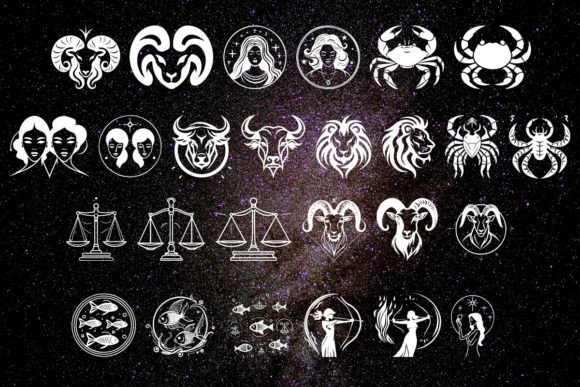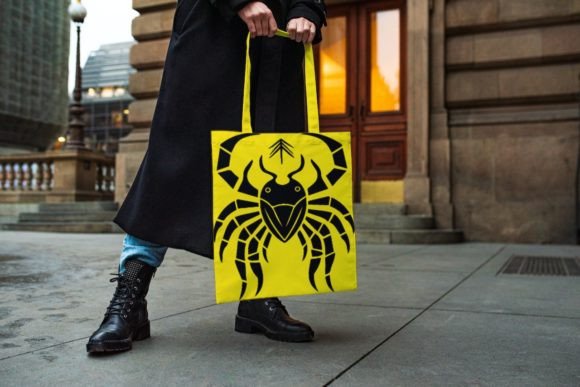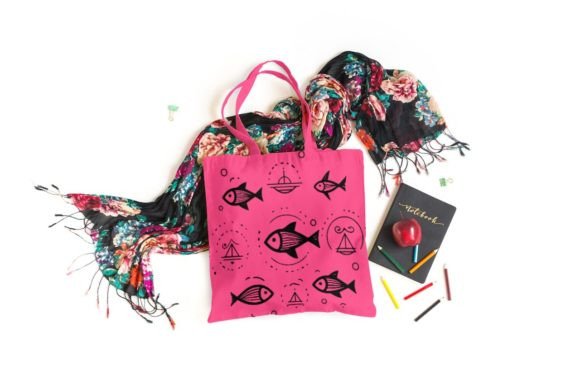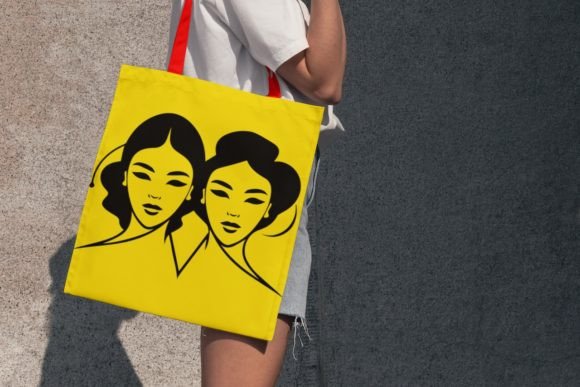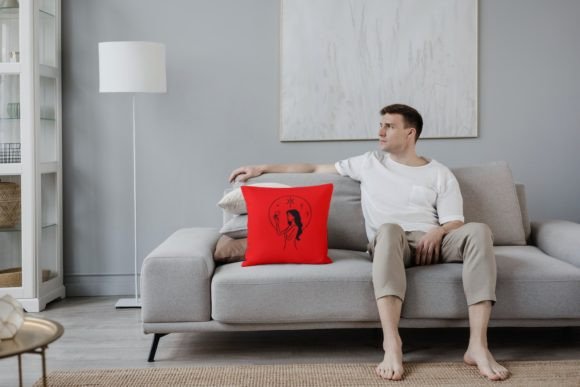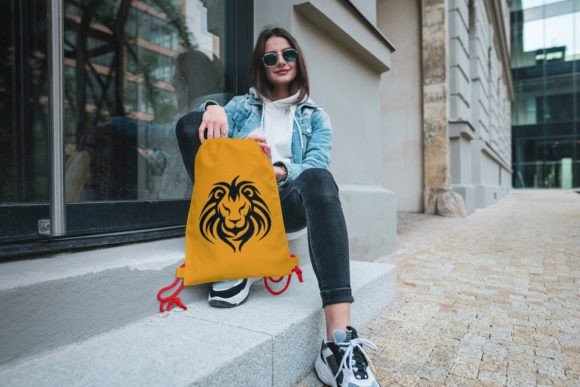
Unlock the Magic of the Zodiac in Your Designs
Have you ever found yourself stuck in a creative rut, yearning for something that sparks imagination and ignites passion? For designers, this moment is all too familiar. That’s where the 12 Zodiac Font comes in – a collection of celestial characters that brings a touch of mystique to your work.
Imagine elevating your designs with symbols that embody the unique personality of each zodiac sign. From the adventurous spirit of Sagittarius to the creative flair of Gemini, Dingbats’ 12 Zodiac Symbols offer a world of possibilities. With this font, you can infuse your projects with astrological allure, making them stand out in a crowded design landscape.
12 Zodiac Font Key Features
- Unique Zodiac Symbols: The font includes 12 unique symbols, each representing a different zodiac sign, allowing designers to add a touch of personality and whimsy to their designs.
- Customizable Elements: The font includes customizable elements such as stars, moons, and other celestial bodies, which can be used to create intricate and detailed designs.
- Scalability and Versatility: The font is designed to be highly scalable, making it suitable for use in a wide range of applications, from small text to large headings and titles.
Designer Review: 12 Zodiac Font
Overall, I think 12 Zodiac Font has some interesting elements, but it also has some limitations that make it less than ideal for certain projects. ✨ Let’s start with the good stuff:
- The font’s eclectic mix of astrological symbols and zodiac-inspired glyphs is unique and attention-grabbing.
- The font is well-suited for projects that need a touch of mysticism or spirituality.
- The font’s bold, playful feel makes it perfect for titles and headings.
However, there are some things that don’t quite work: ⚠️
- The font’s irregular shape and awkward letter spacing can make it difficult to read at smaller font sizes.
- The font’s overuse of symbols and glyphs can make it feel cluttered and overwhelming.
- The font’s limited character set may not be suitable for longer blocks of text.
Overall, I think 12 Zodiac Font is best suited for short, attention-grabbing titles and headings in projects that need a touch of mysticism or spirituality. With some careful use and attention to font size and spacing, it can be a really effective choice. But for longer blocks of text or more straightforward projects, you may want to look elsewhere.
The 12 Zodiac Font is perfect for:
- Designing astrology-themed graphics and illustrations.
- Creating mystical and whimsical branding materials.
- Adding a touch of personality to social media posts and online content.
Remember to use the 12 Zodiac Font in a way that feels authentic and true to your brand’s personality.